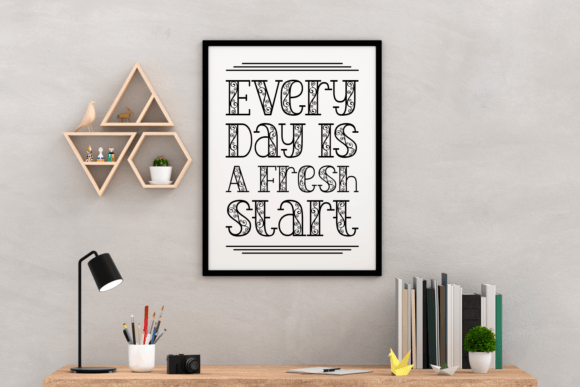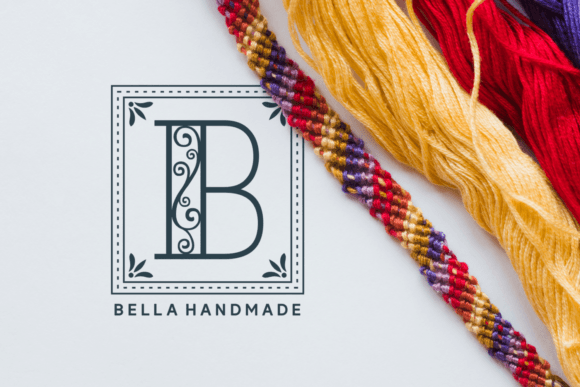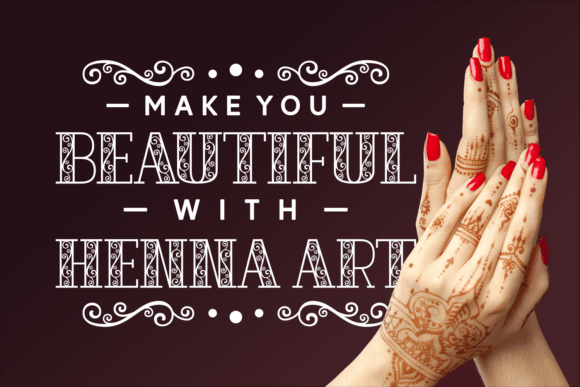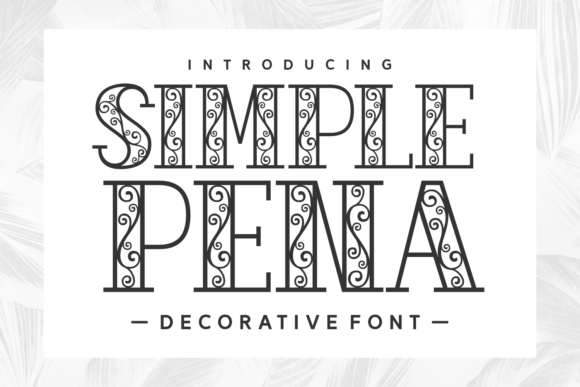
Introduction to Simple Pena Font
Simple Pena is a gorgeous and elegant decorative font.
With its graceful swirly lines, this typeface has the potential to elevate any design Use it to create beautiful invitations, logos, cards, posters, apparel, and many more.